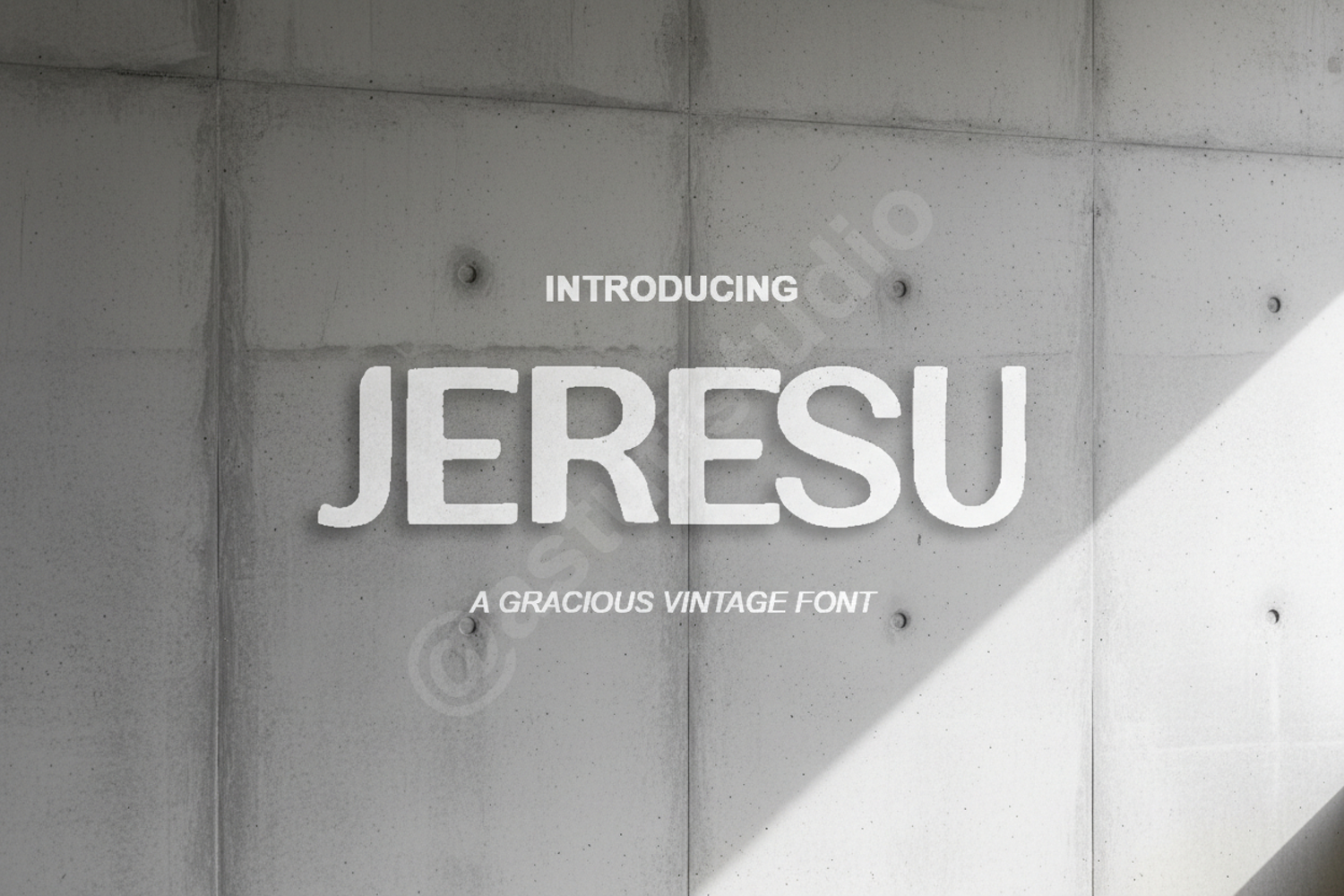
Jeresu - Sophisticated Modern Serif Typeface
Jeresu
Jeresu is a premium serif typeface designed for creators who value elegance and versatility. With its refined lines and sophisticated proportions, Jeresu brings a touch of timeless class to any creative project. This font is meticulously crafted to ensure a perfect balance between modern flair and classic structure, making it a reliable choice for high-end design work.
- Complete set of uppercase and lowercase characters
- Numerals, punctuation, and extensive multilingual support